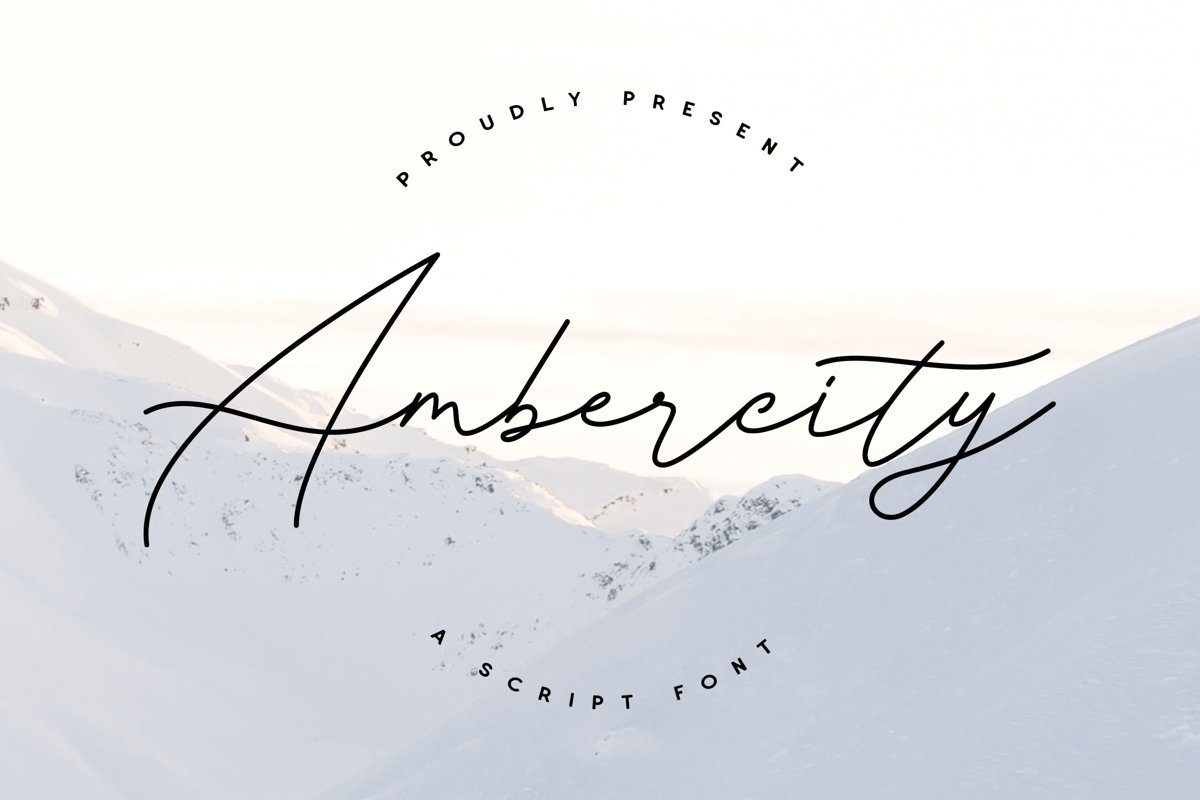
Ambercity is a monoline classic script with a handwritten style that makes this font looks elegant, natural, stylish and ideal for any awesome project that needs handwriting feel. We made with personality touch every single curve. It matches applies in some designs such as the logotype, poster, packaging, branding, quotes, badge and more custom design. The features uppercase, lowercase, numeral, punctuation & symbol.